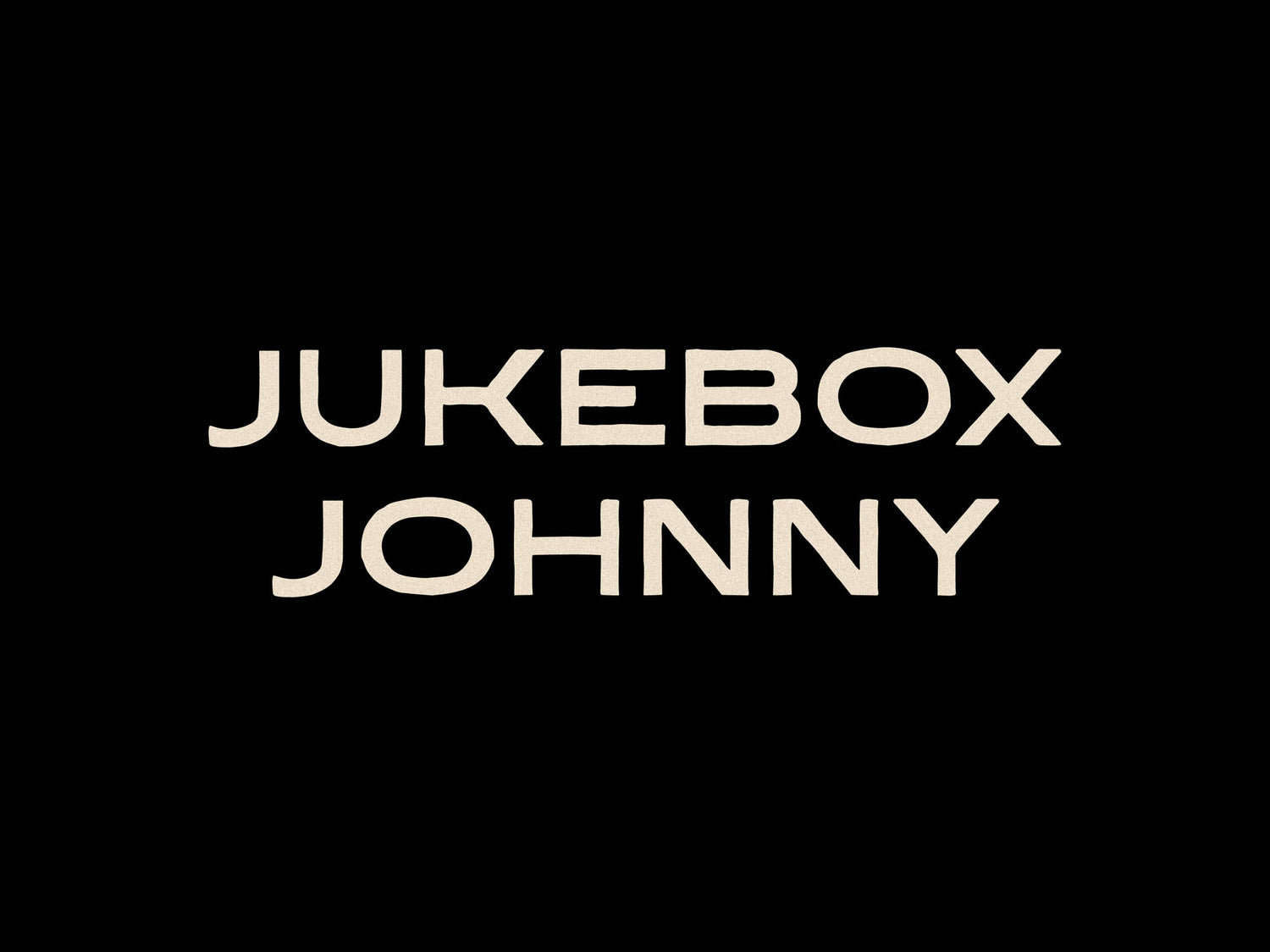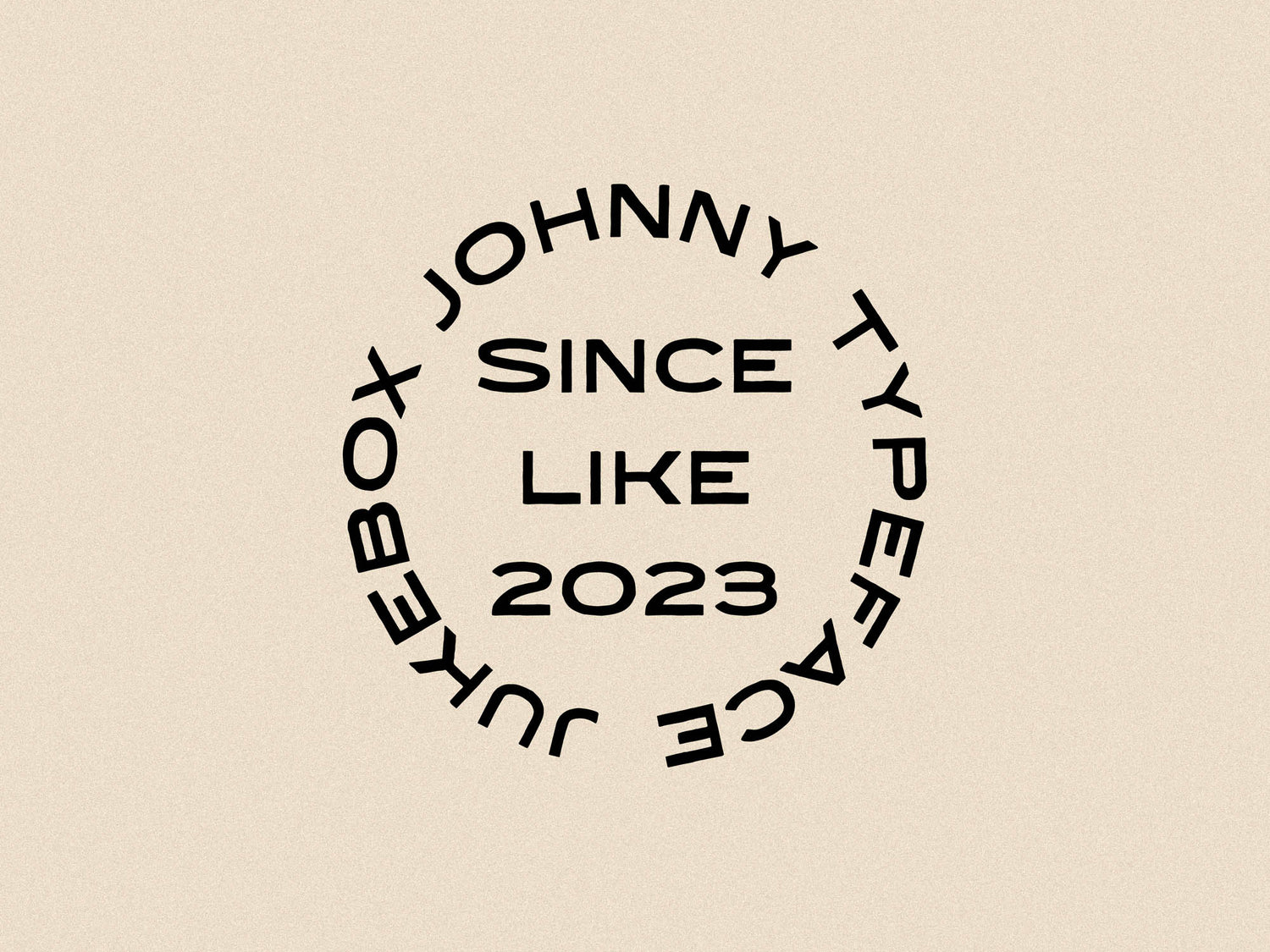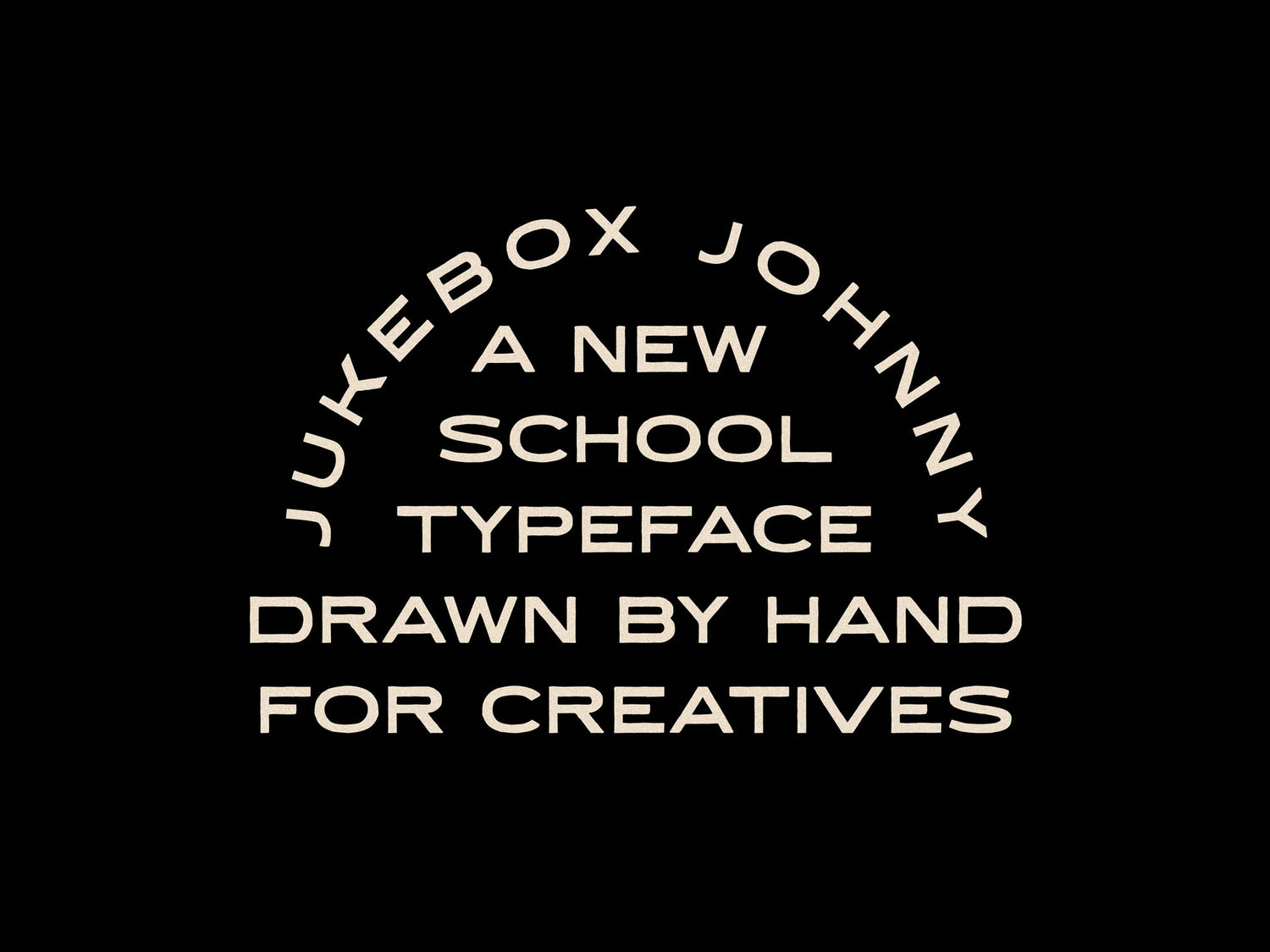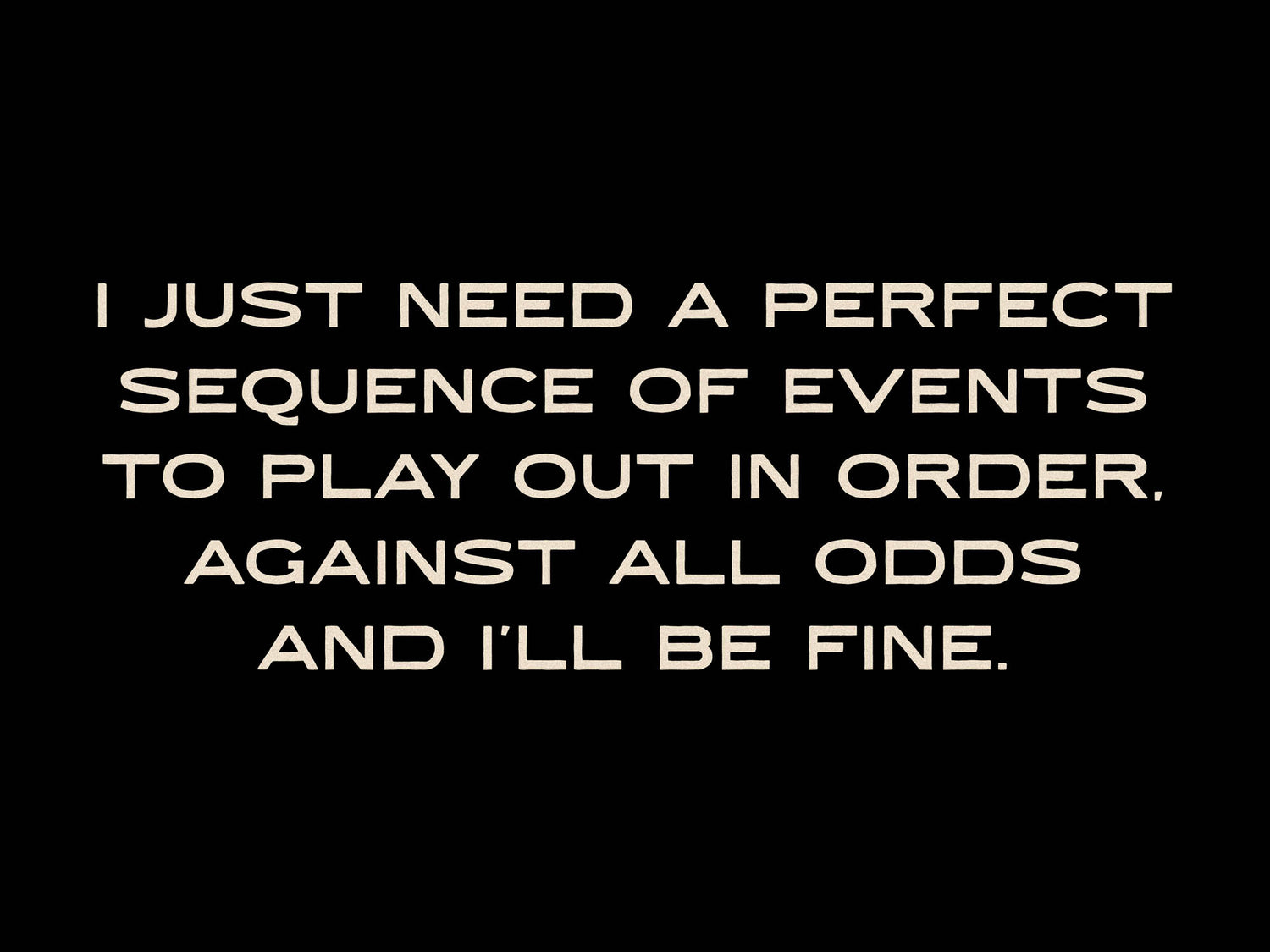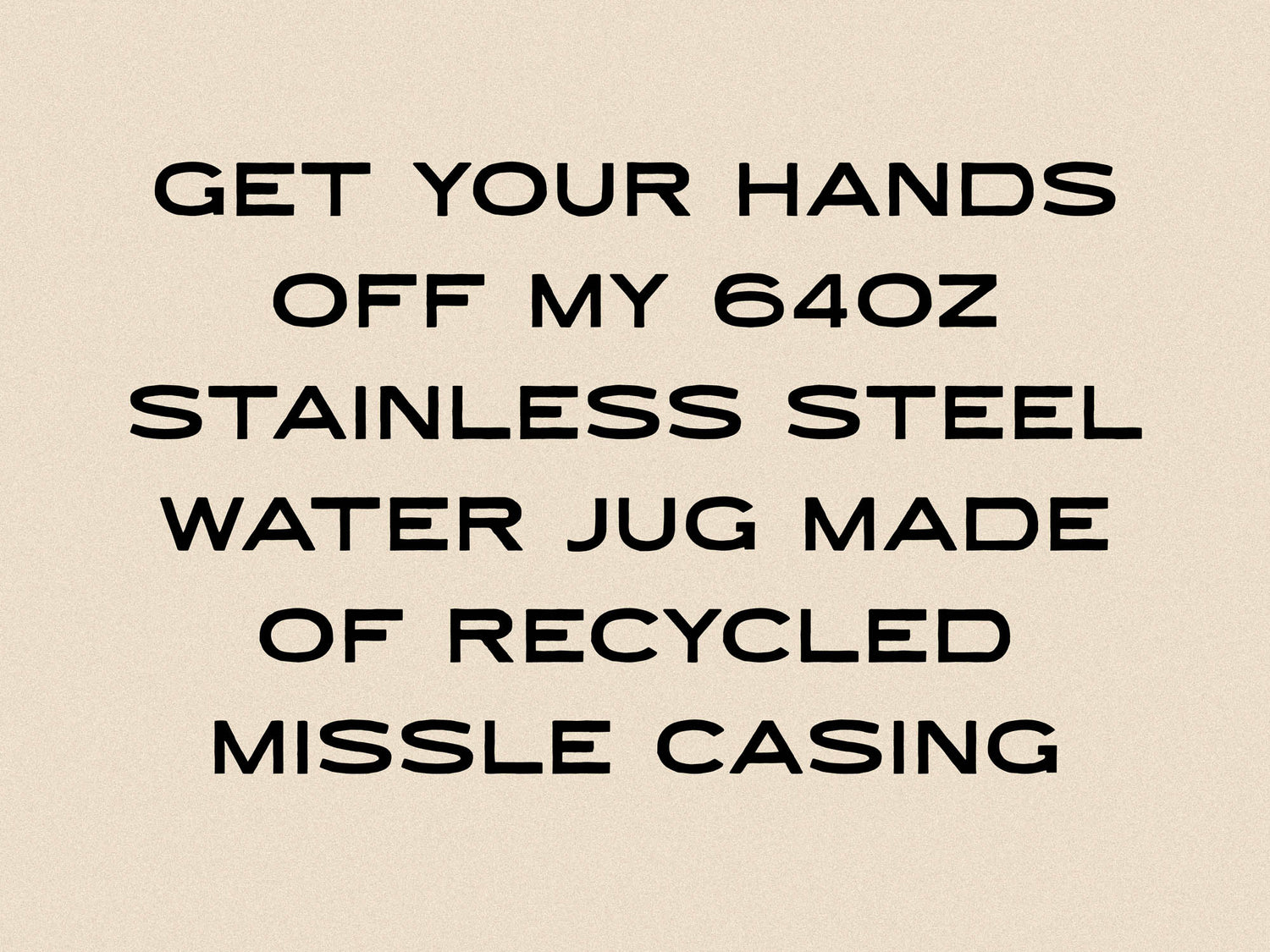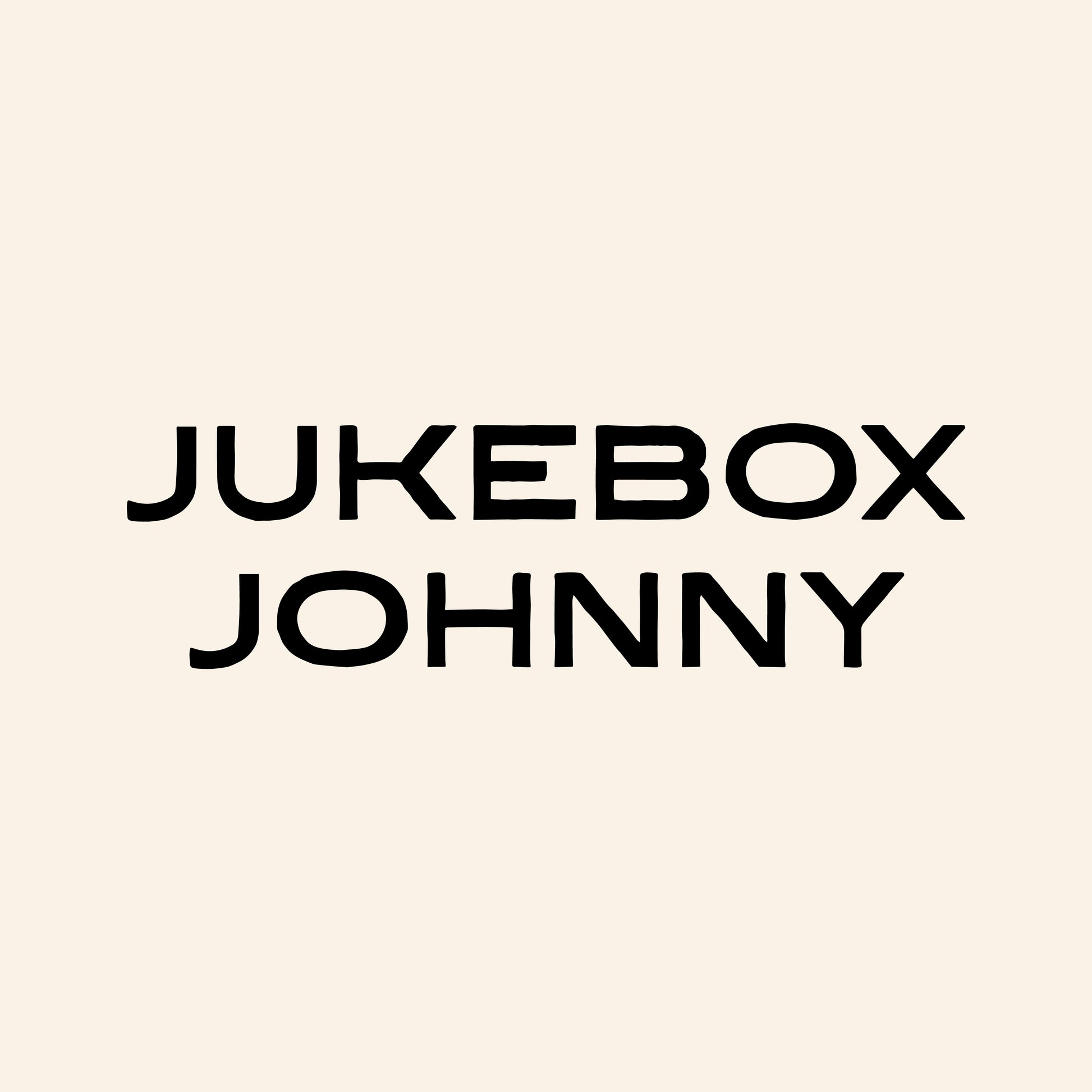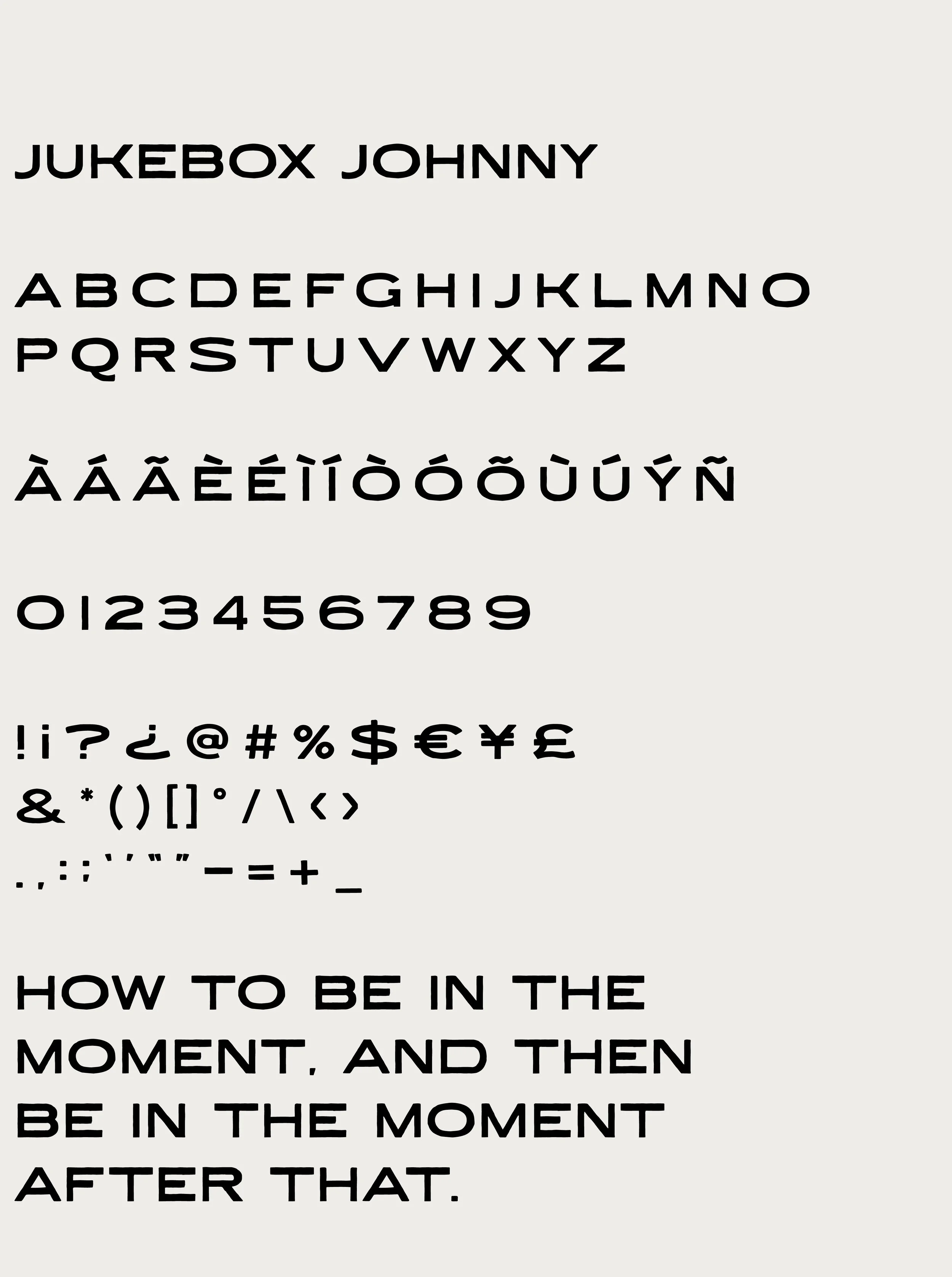
Jukebox Johnny
This one’s got vintage energy, but it’s not stuck in the past.
Jukebox Johnny is a wide-set sans with soft curves, balanced structure, and enough variation to keep things from getting dull. Great for headlines, packaging, or anything needing some quiet confidence.